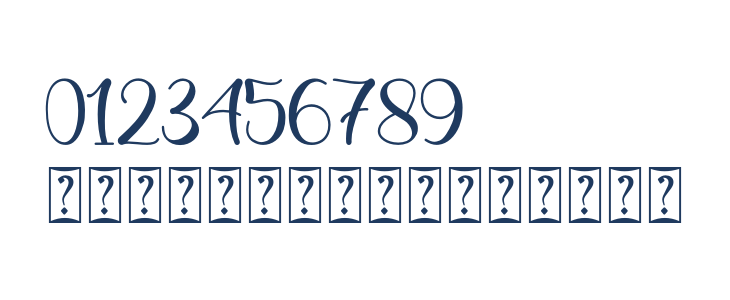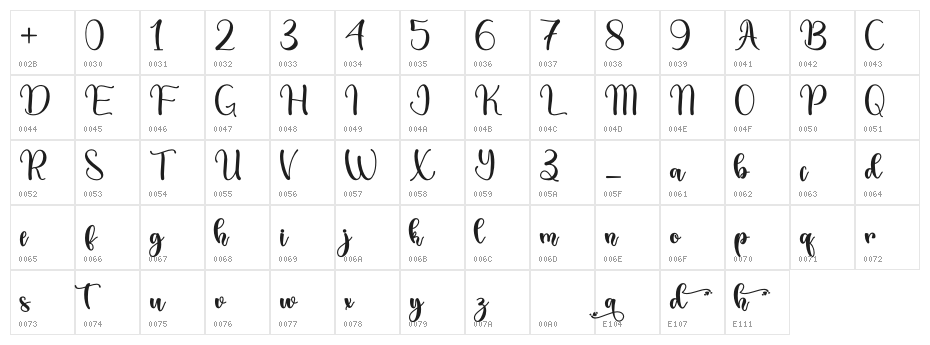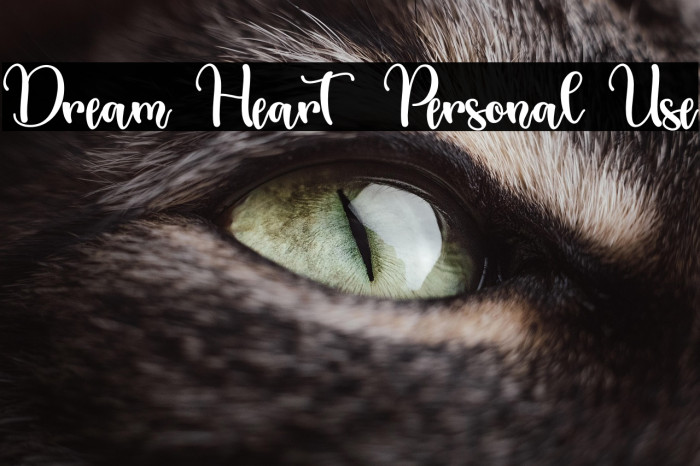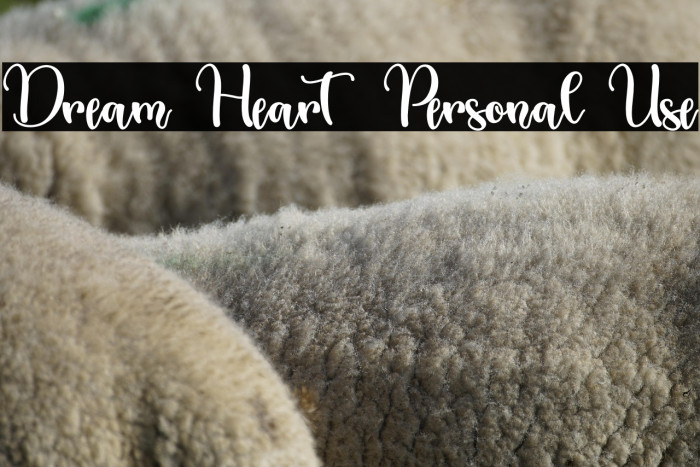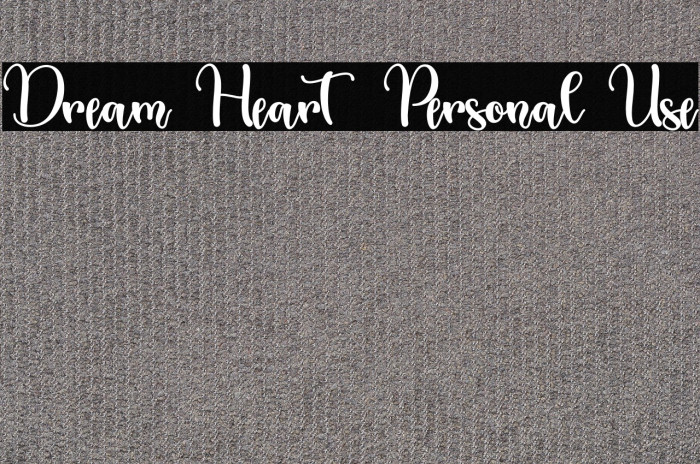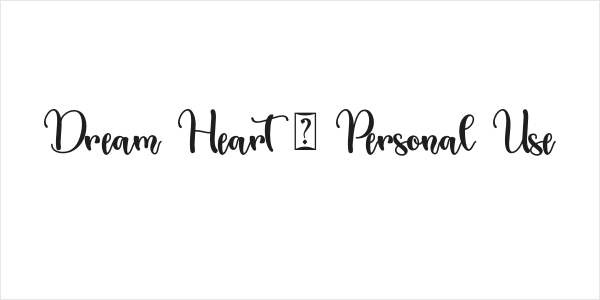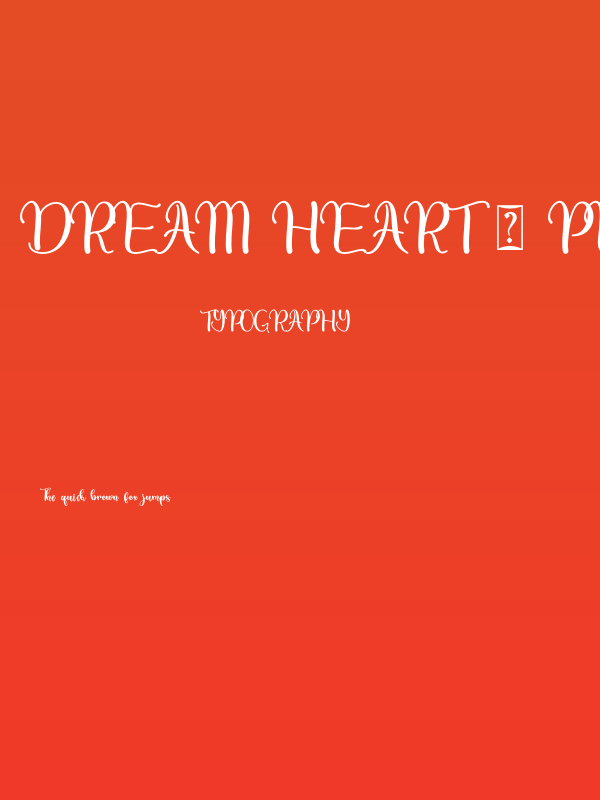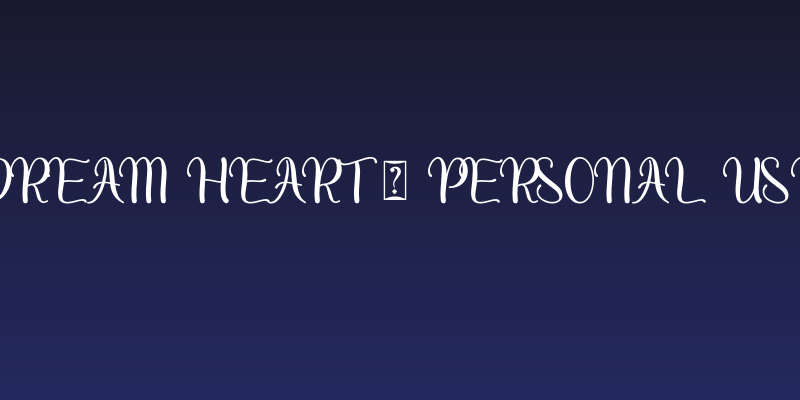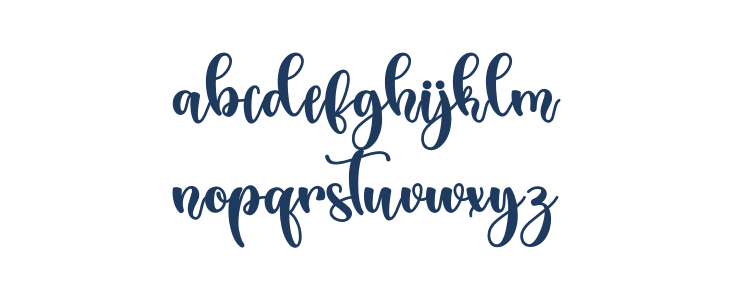
Dream Heart - Personal Use Font
Dream Heart - Personal Use Description
This font exhibits a whimsical and flowing script style, characterized by its elegant and cursive letterforms. The uppercase letters are bold and expressive, with sweeping curves and loops that convey a sense of movement and grace. The lowercase letters maintain this fluidity, with a slightly more compact form that complements the uppercase. The numerals are consistent with the overall style, featuring rounded edges and a playful demeanor. The font's special characters, though not clearly visible, suggest a continuation of the decorative theme. This typeface is ideal for projects that require a personal and artistic touch, such as invitations, greeting cards, and branding materials. Its unique style makes it stand out, adding a touch of sophistication and charm to any design.
| Use Case | Logos, Headlines |
| Proposed Projects | Ideal for invitations, greeting cards, and branding materials. |